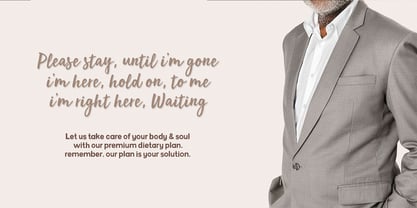
Bladis Night
by Scoothtype
The Bladis Night Font Family was designed by Muammar and published by Scoothtype. Bladis Night contains 6 styles and family package options.
Bladis Night is a font duo between a serif and modern script fonts. Bladis Night is good for logo branding, wedding invitation, typography wedding, quotes text, magazine, or anything you want to do. Bladis Sans Serif includes numbers punctuation, alternates, and it also supports other languages. Bladis Night was built with OpenType features and includes ligatures, beginning and ending swashes , numbers, punctuation, and it also supports other languages. Thank you!